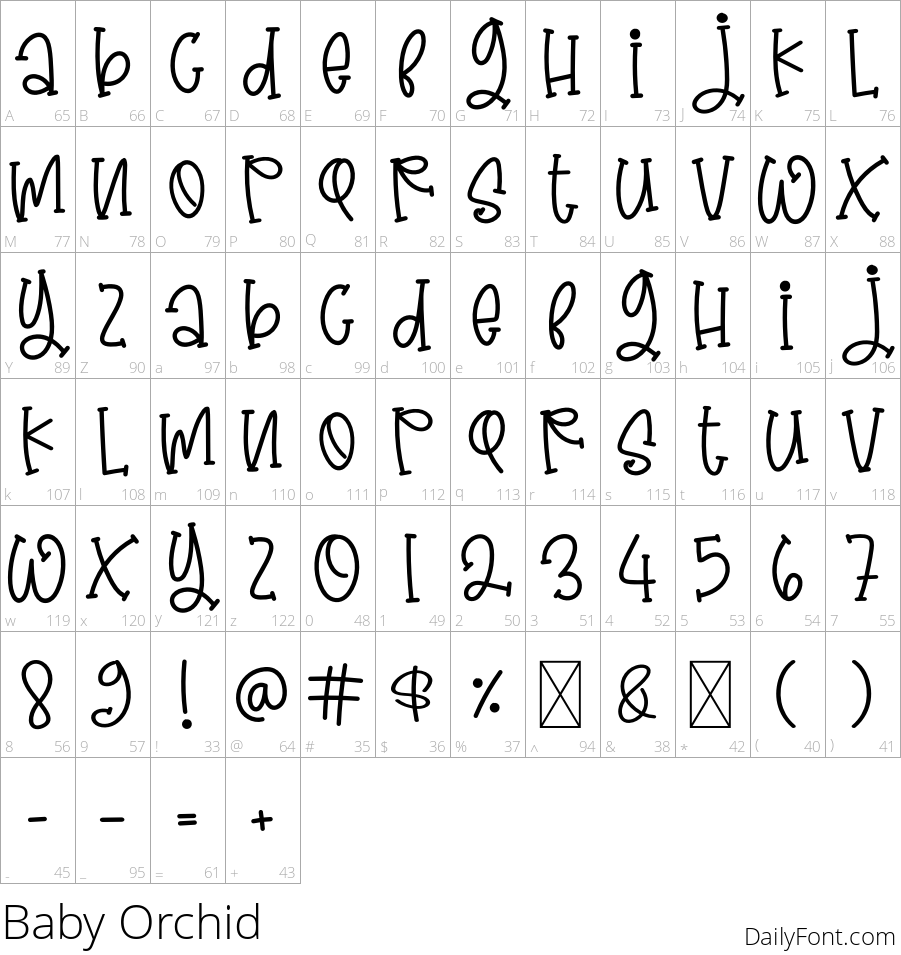
Baby Orchid
Baby Orchid is a charming handwritten font that exudes a sense of whimsical elegance. The characters in this typeface are thoughtfully designed with gentle curves and fluid strokes, making each letter appear as if they were delicately drawn by hand. This typeface offers a playful yet refined aesthetic, perfect for projects that require a personal touch with a hint of sophistication.
The uppercase letters of Baby Orchid are a beautiful blend of simplicity and flair. They possess a graceful height and uniformity, enhanced by slight flourishes that give them a distinctive personality without overwhelming the eye. Meanwhile, the lowercase letters maintain a consistent and smooth flow, contributing to the font’s overall harmonious appearance. The lowercase 'g' and 'y' stand out with their elegantly looped descenders, adding a touch of flair to the typeface.
Numbers and punctuation in Baby Orchid retain the same handcrafted essence, ensuring a cohesive look across all types of content. The numbers are slightly narrower than the letters, yet they harmonize seamlessly with the rest of the characters, making them an ideal choice for use in a variety of contexts, from dates to price tags.
One cannot overlook the overall delicacy of Baby Orchid. The careful attention to detail in each character makes it a versatile font choice. Whether it’s for wedding invitations, greeting cards, or personal branding, Baby Orchid provides a unique blend of creativity and refinement that is sure to captivate and charm.